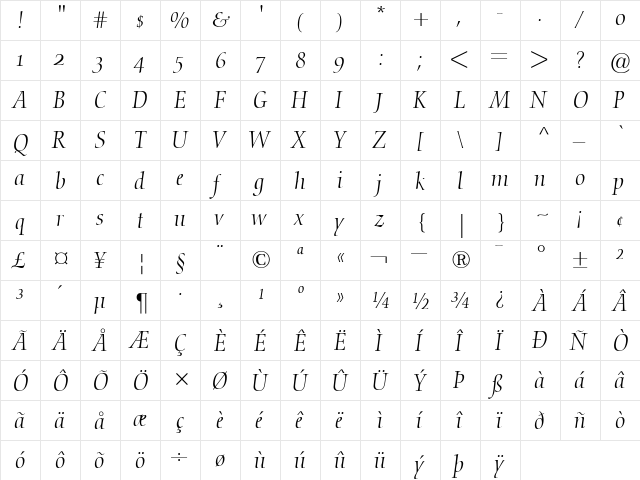
Design Context for NofretOldstyleFigures-Light Typeface
NofretOldstyleFigures-Light carries the refined structure of traditional serif typography, with bracketed terminals and considered proportions that communicate credibility and craft. Its italic angle brings a sense of urgency and motion to the letterforms. Its slender proportions lend an understated elegance to any composition.
Pro Tip: Set NofretOldstyleFigures-Light at slightly larger body copy sizes than you would a regular-weight serif to compensate for its delicate stroke contrast.